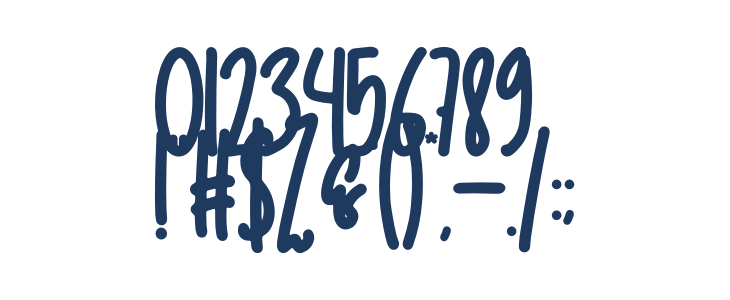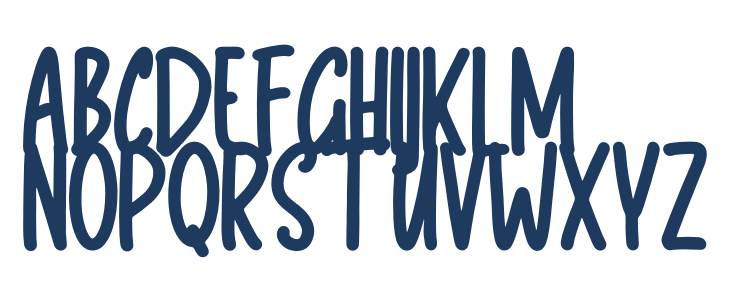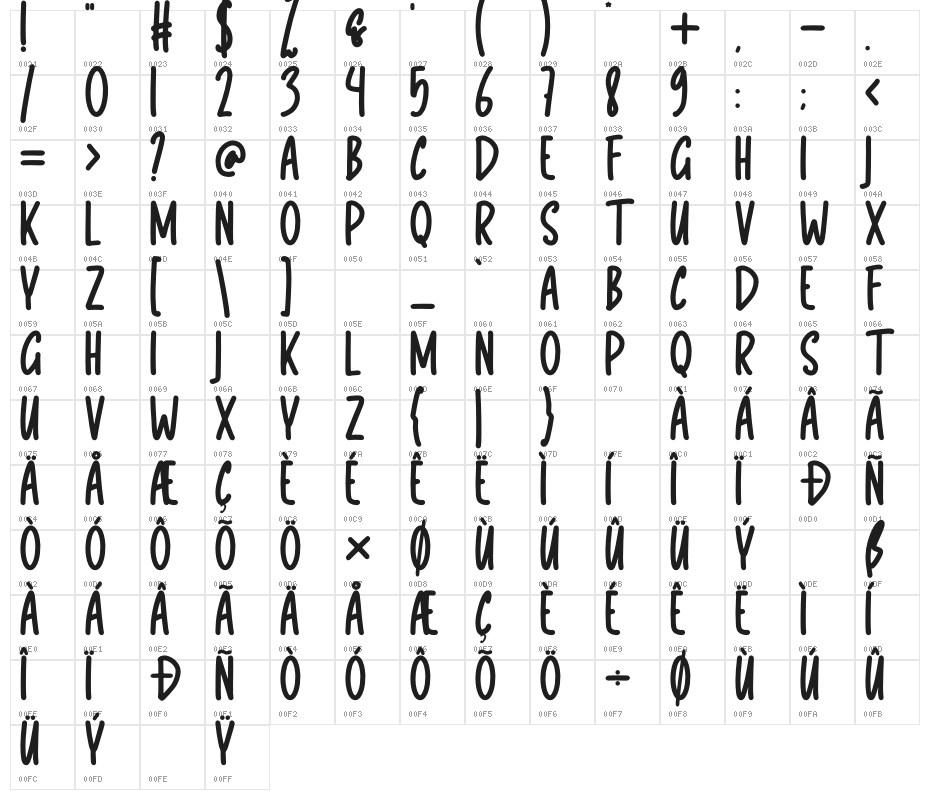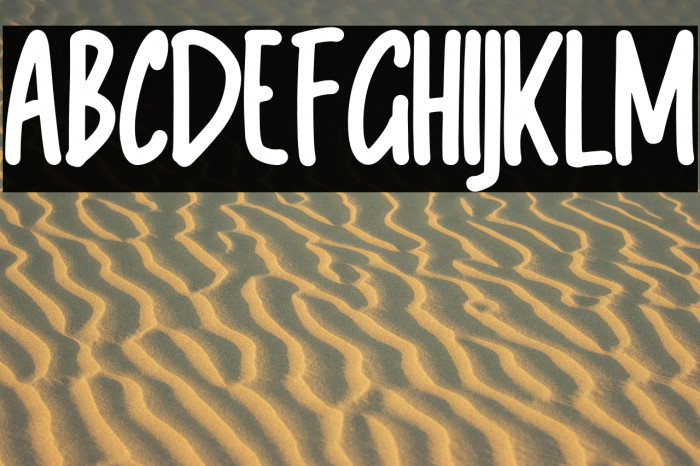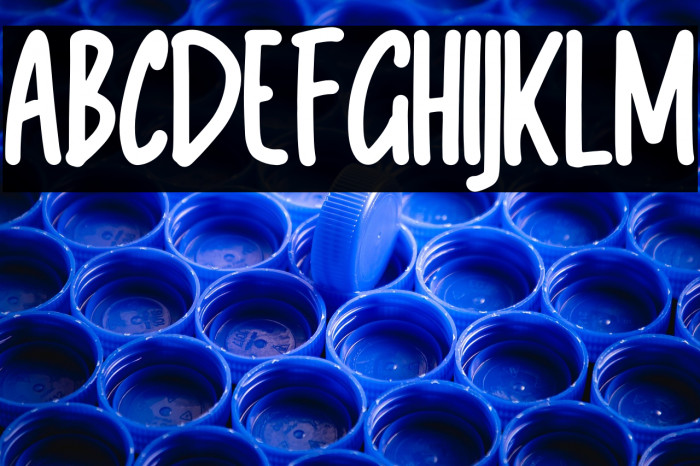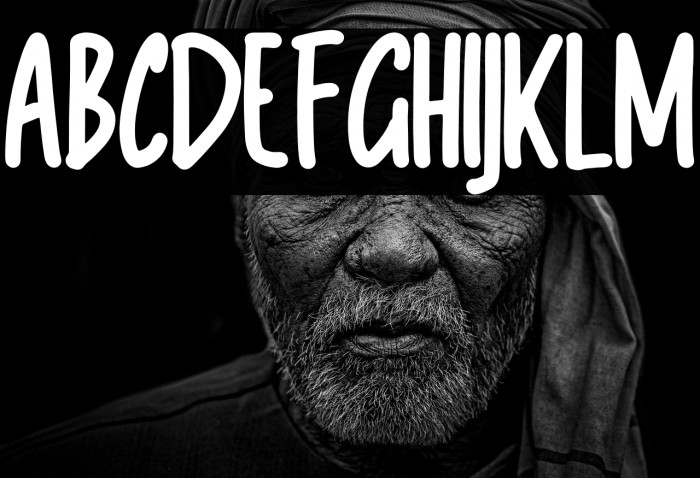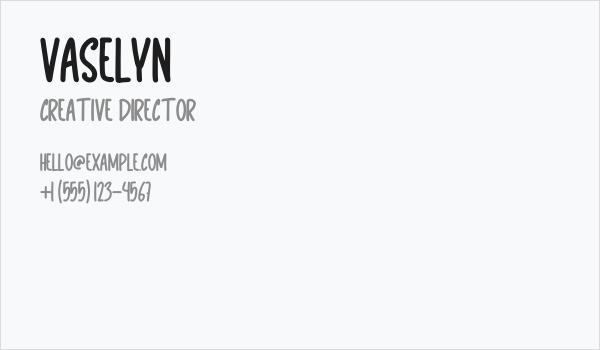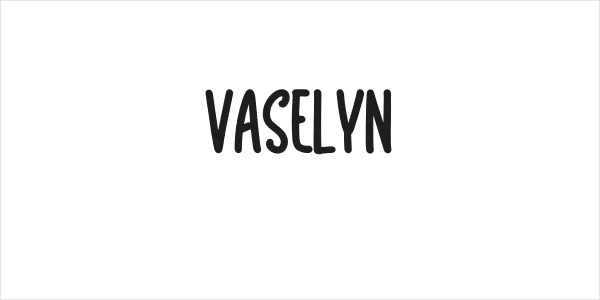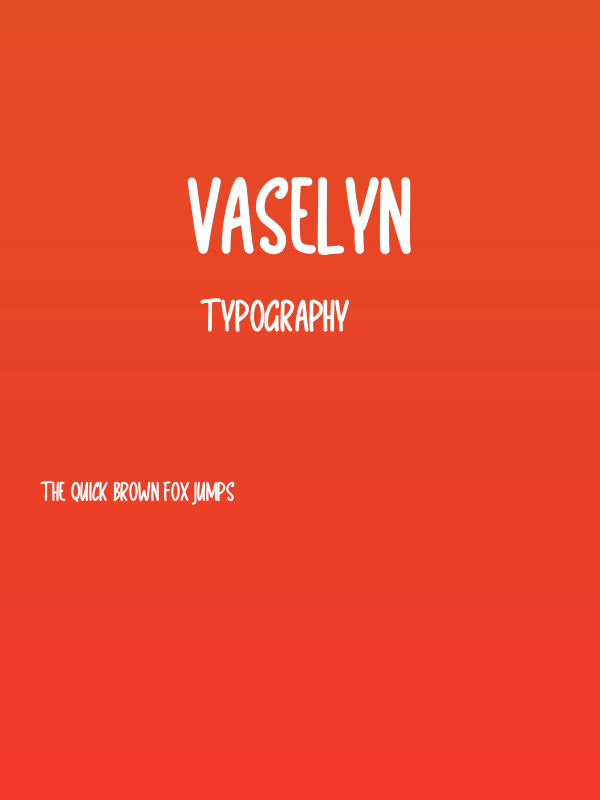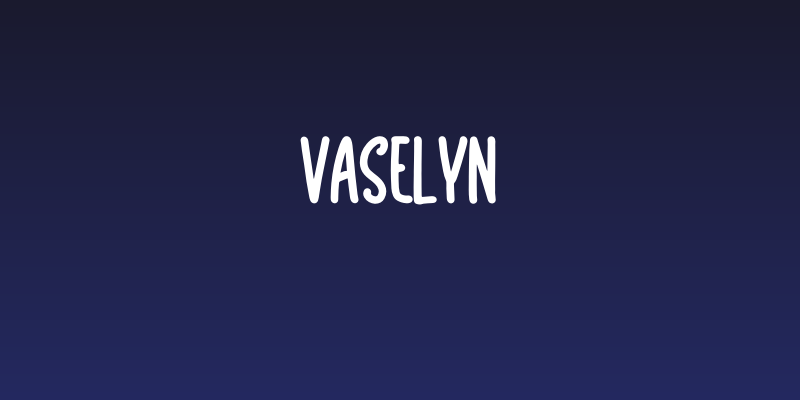
Vaselyn Font
Vaselyn Description
A playful, hand-drawn style font with irregular, slightly whimsical characters. The uppercase and lowercase letters are similar in style, with a casual, informal appearance. The numbers and symbols also share this handwritten, sketch-like quality.
| Overall Style | Casual, Playful, Hand-drawn |
| Use Case | Headlines, Children's materials, Creative projects, Logos |